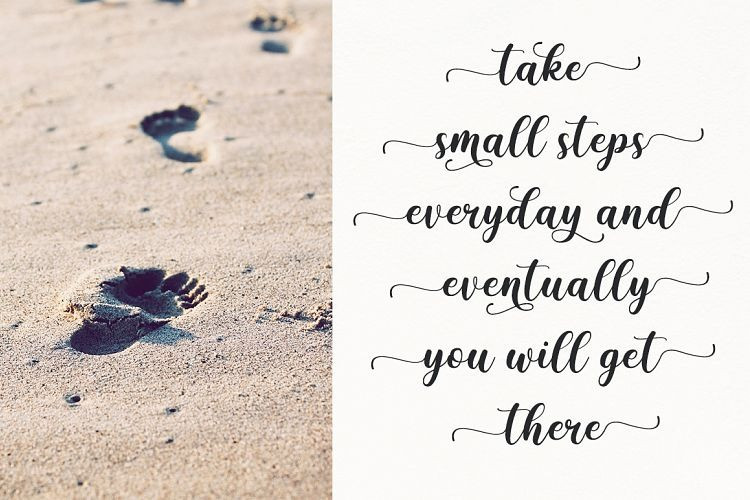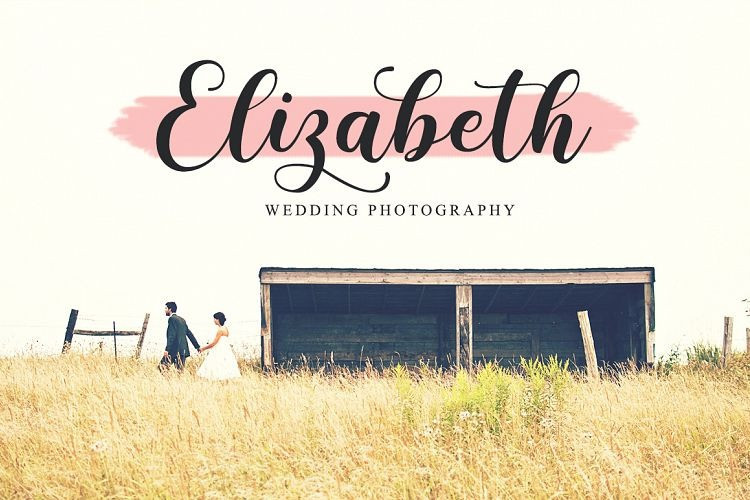
Chintya Script Font
This is a new fresh handmade calligraphy font, has something cool to deliver your words into a cute and sweet feels. Introducing Chintya Font. It’s designed and shared by Suby Studio. It’s a beautiful calligraphy font. It has a elegant and modern touch. it can be used for logos, branding, invitations, stationary, wedding designs, social media posts, and others.